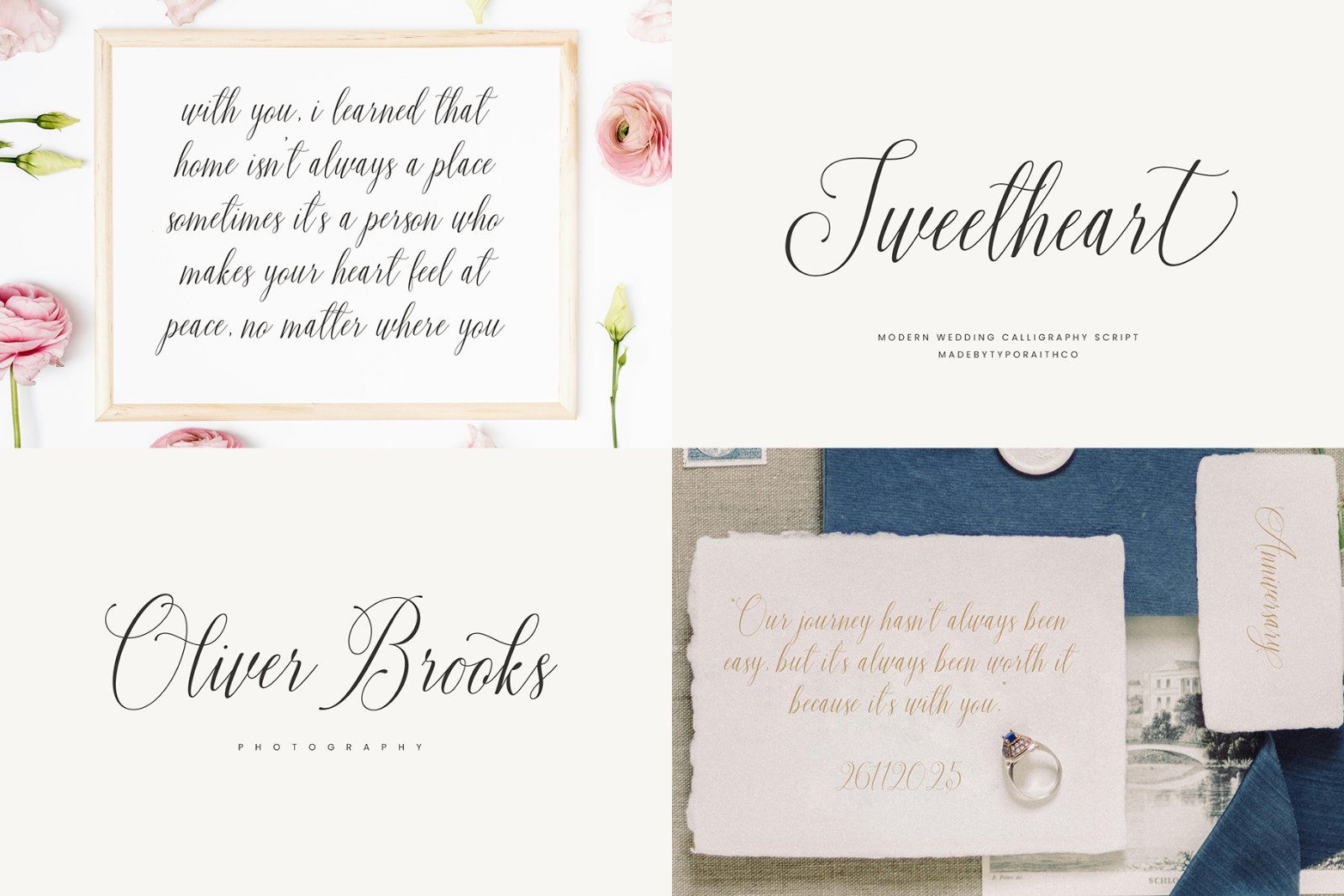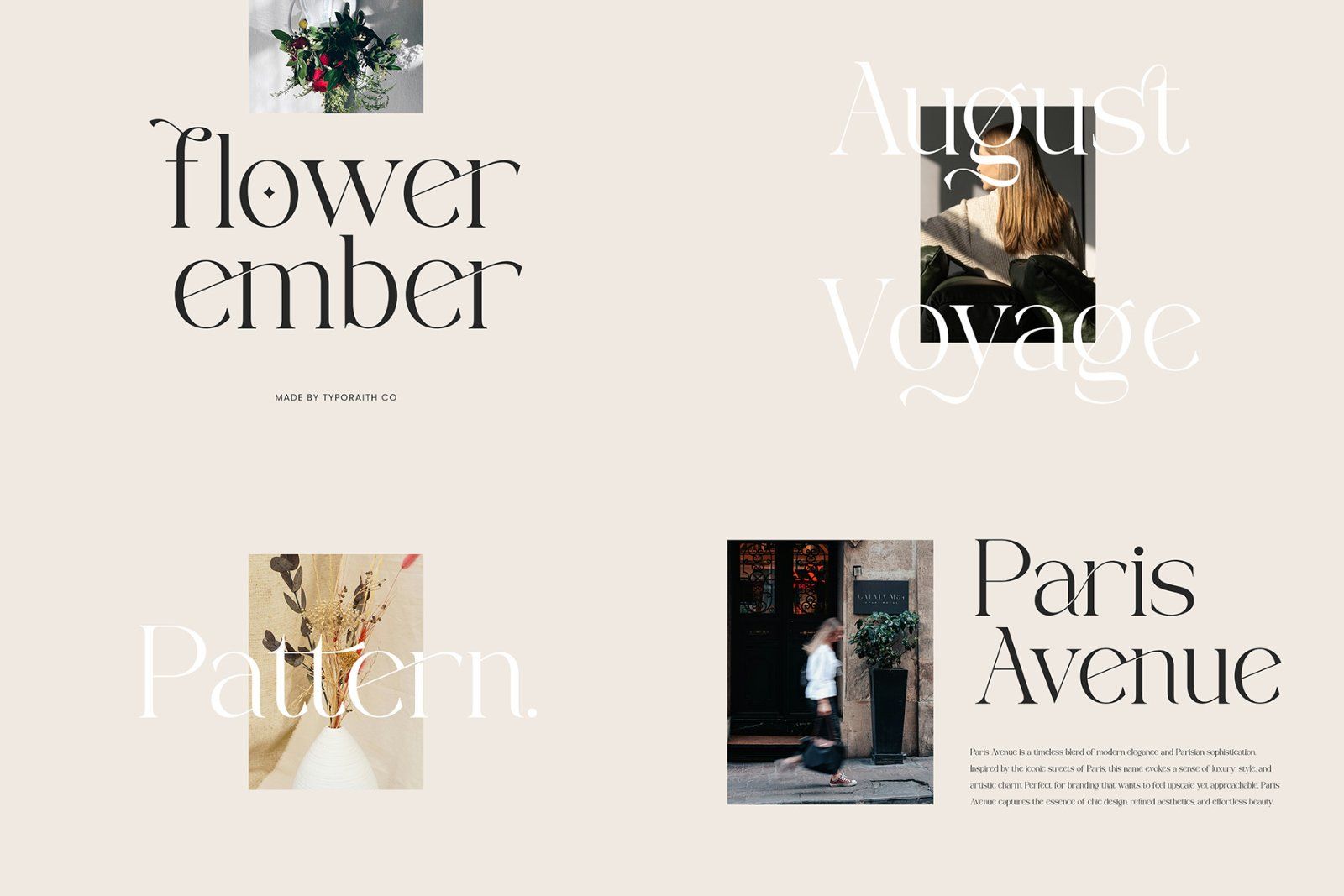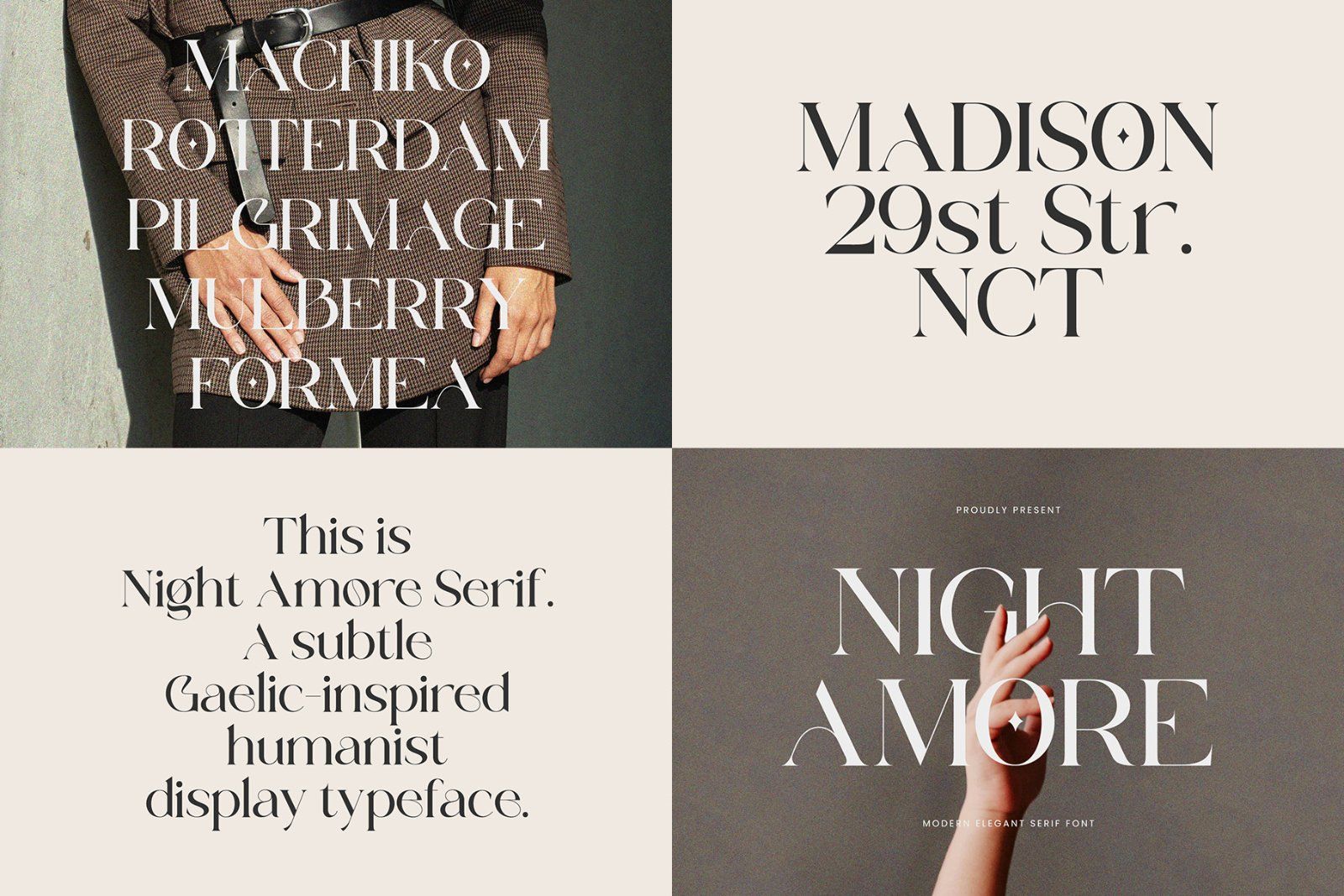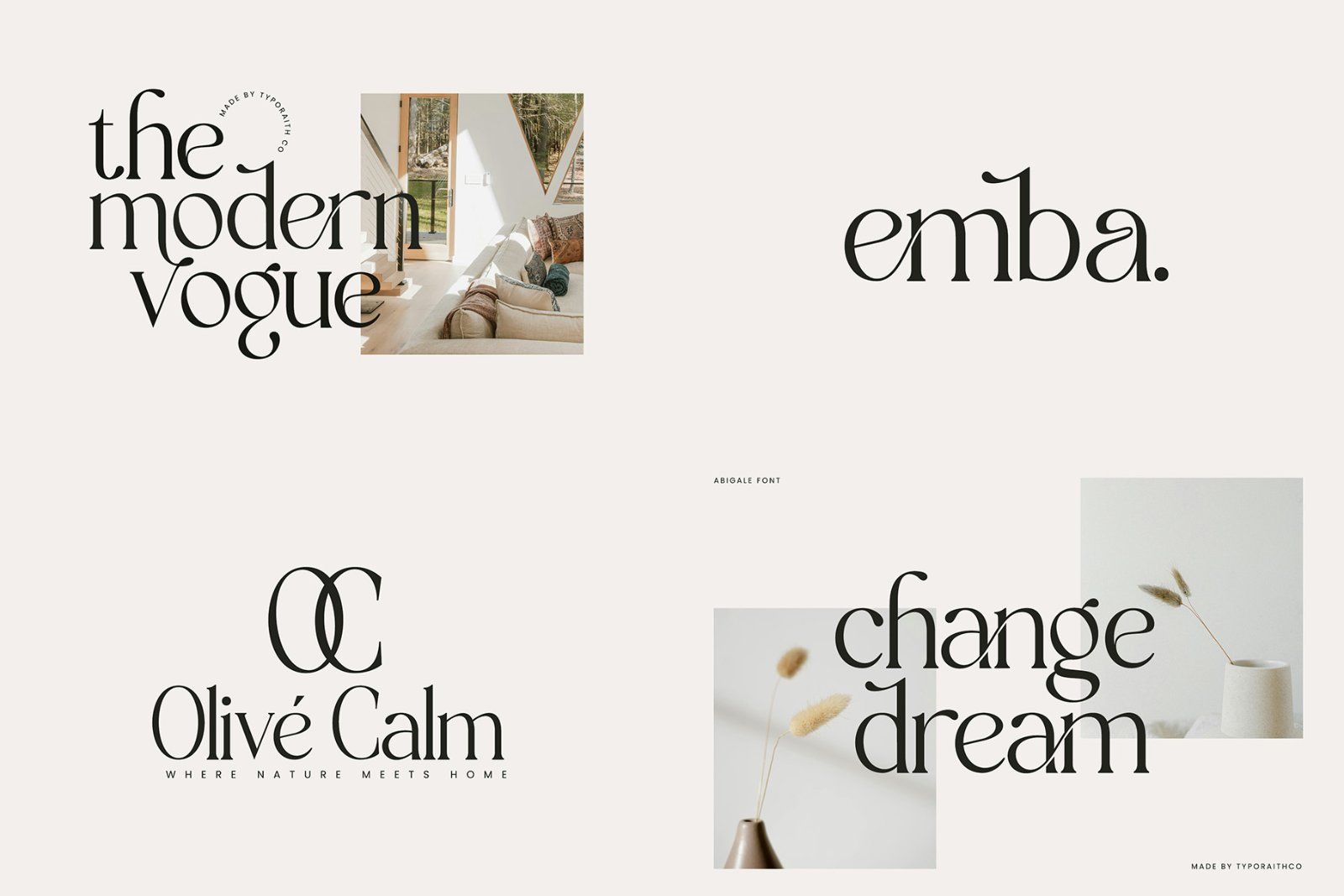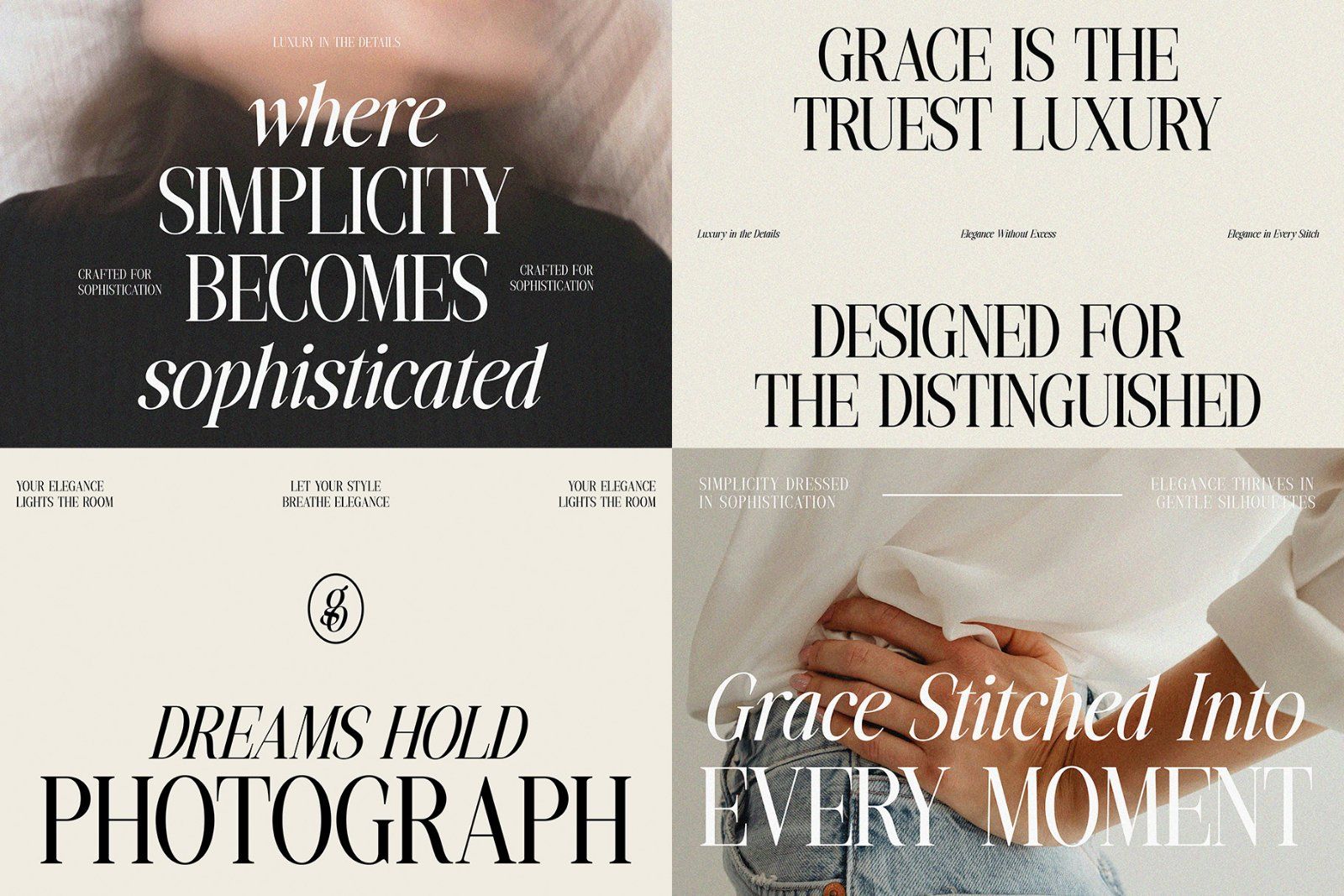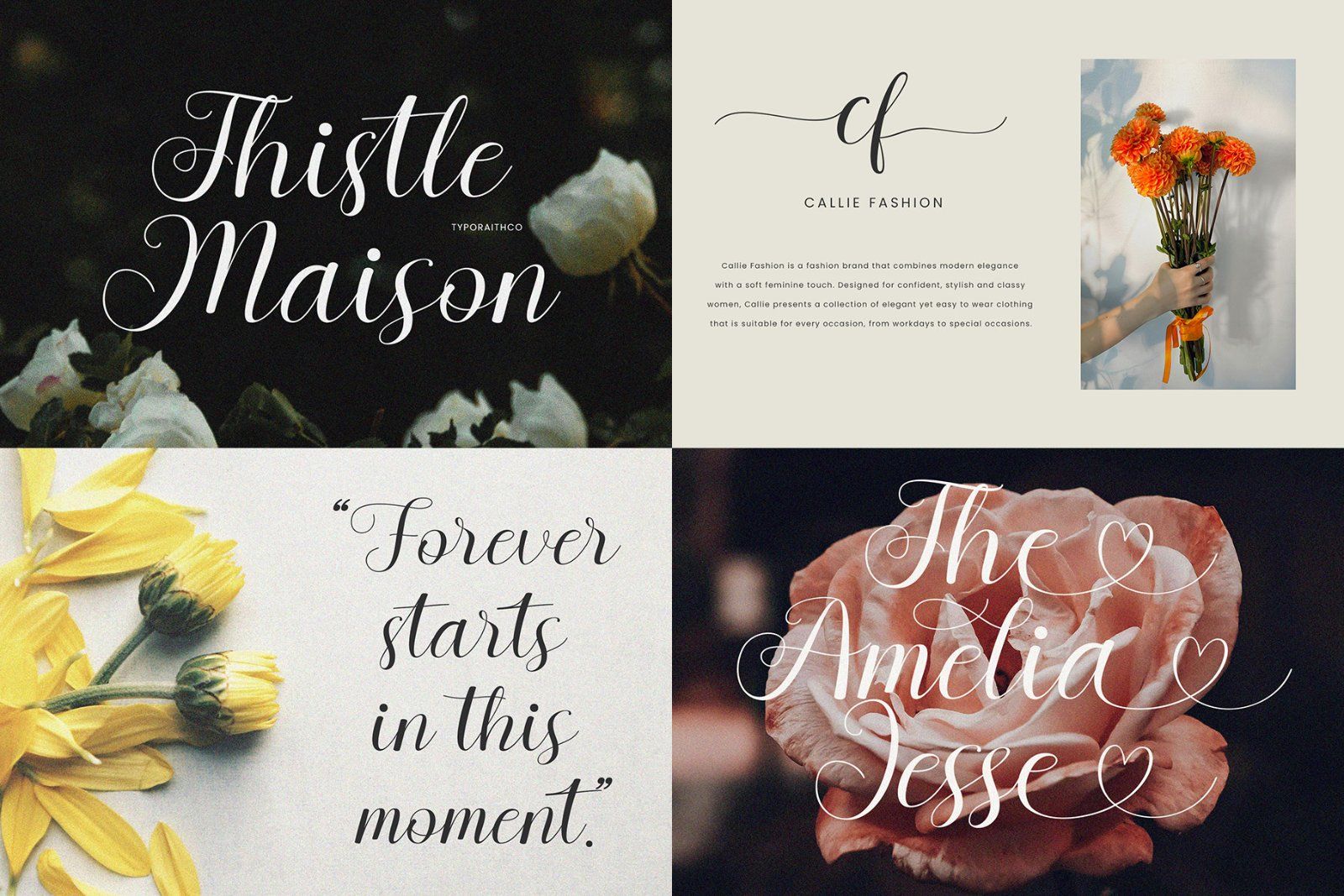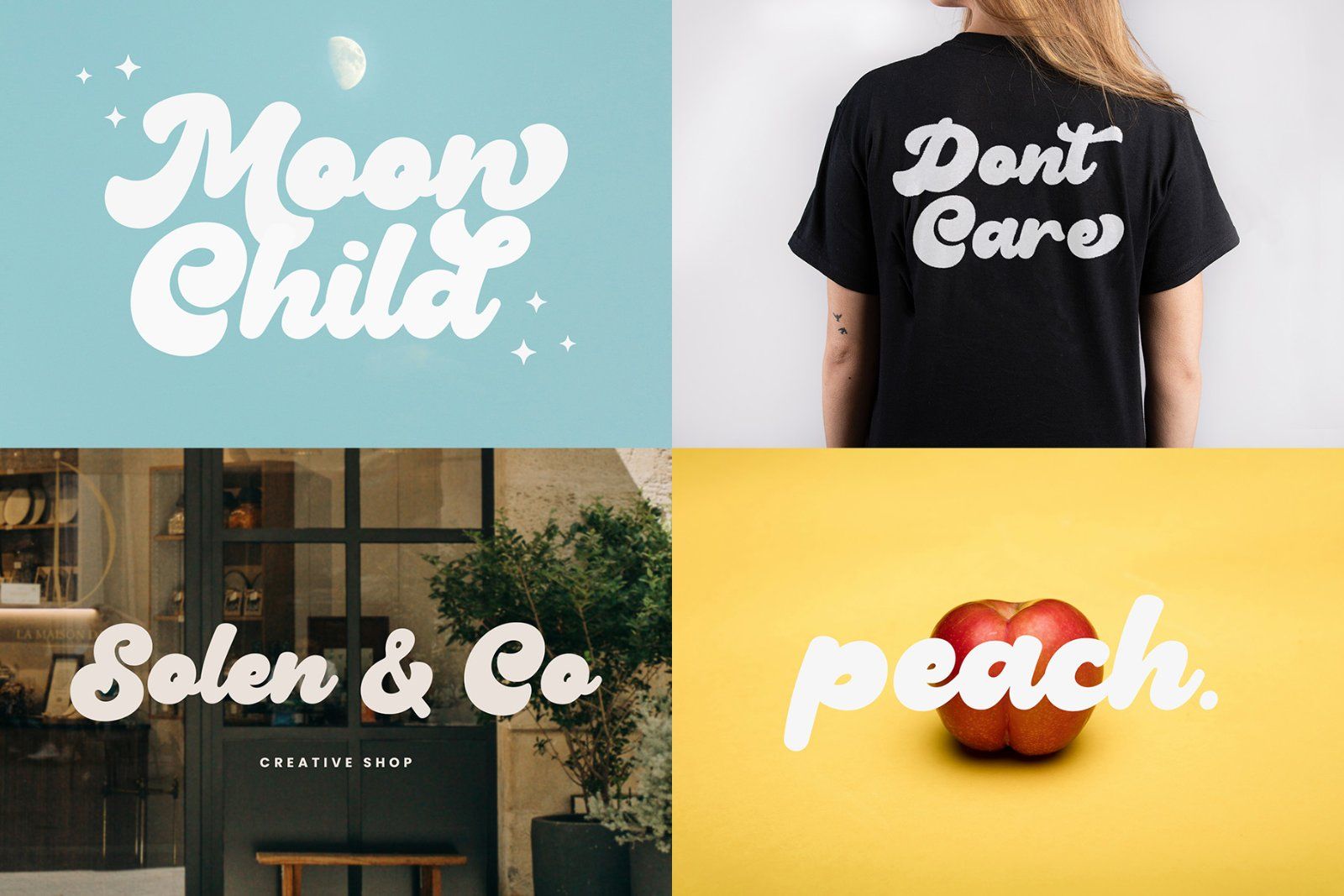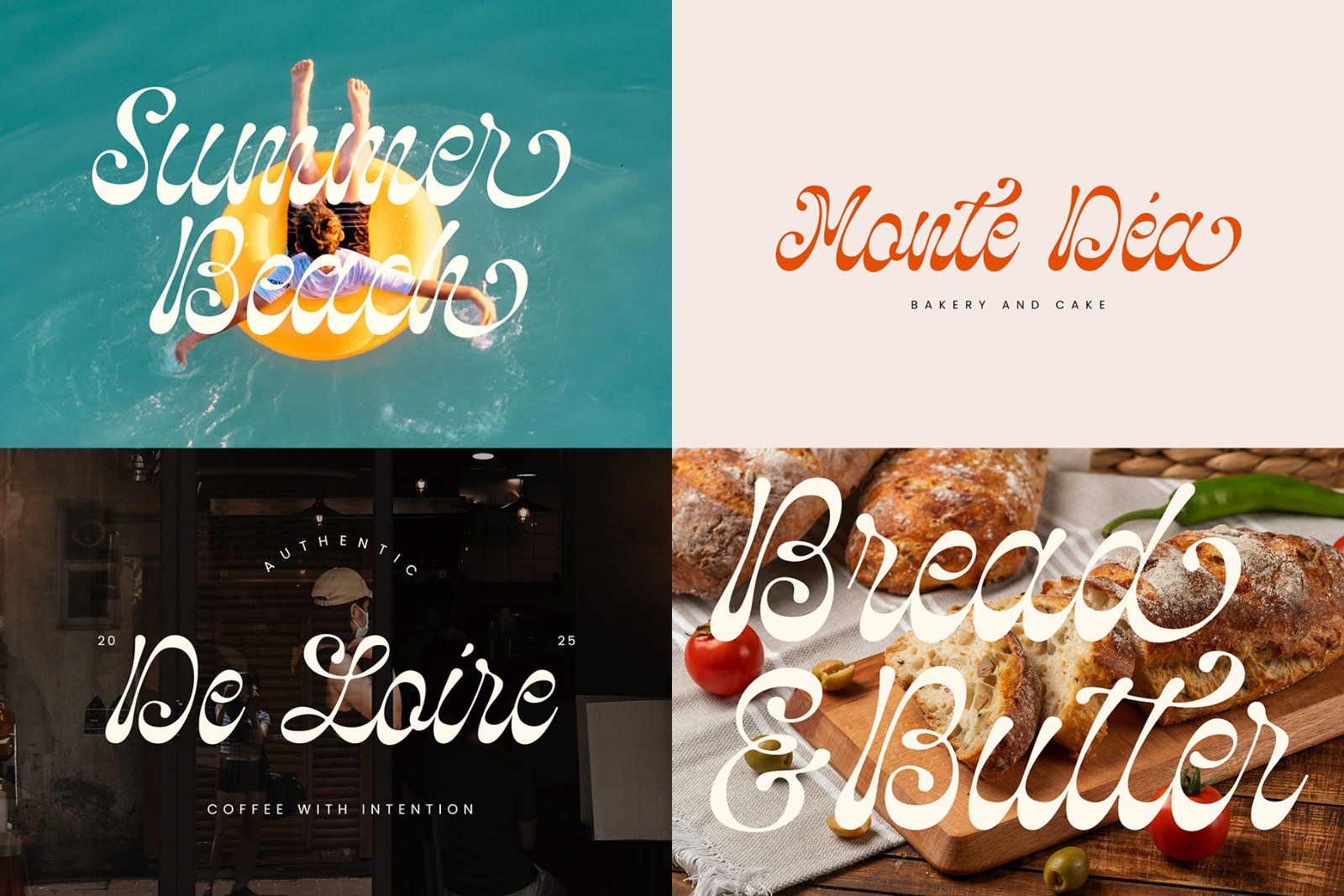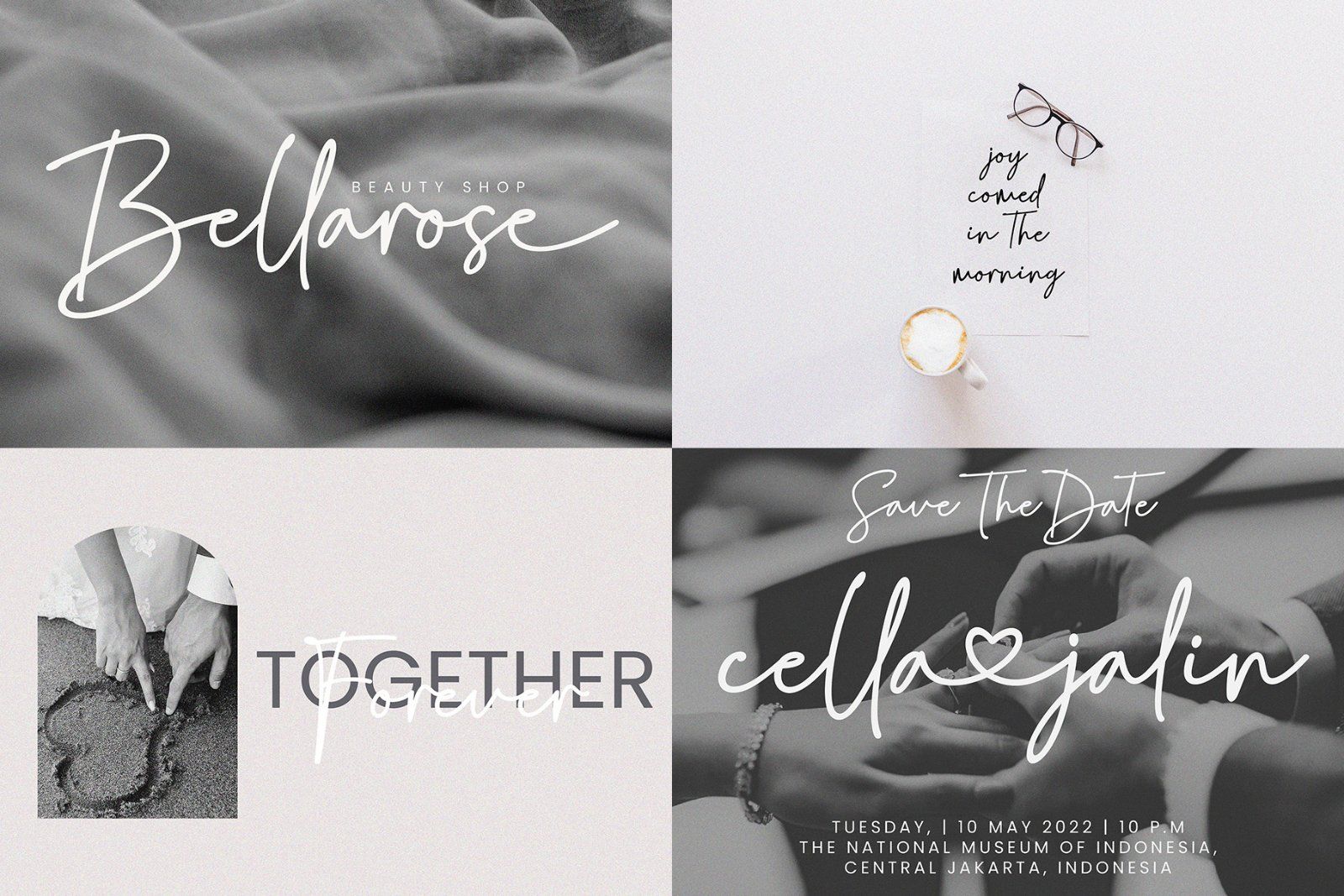
Elevate your creative projects with the Modern Font Bundle, a curated collection of 12 premium, modern, and elegant typefaces crafted by Typoraith Co. This bundle brings together a beautiful mix of serif, script, editorial, and retro-inspired fonts, perfect for designers, creatives, and brand owners who want timeless sophistication in every design.
Each typeface is thoughtfully designed to deliver high–end aesthetics—ideal for branding, wedding designs, logos, editorial layouts, social media, product packaging, invitations, and more.
What’s Included (12 Fonts Total):
• A curated selection featuring:
• Elegant modern serif fonts
• Editorial-style display typefaces
• Handwritten script fonts with beautiful flow
• Retro-inspired bold serif styles
• Aesthetic connecting script fonts
• Stylish branding-ready typefaces
Examples featured in the bundle include: Calistra Calligraphy, Grove Peach, Abigale, Monarch Heritage, Serena Lewis, Cattie, Chairo, Galem, Night Amore, Blush Couture, and more.
Perfect For
• Branding & Logo Design
• Wedding Invitations & Stationery
• Editorial Layouts & Magazines
• Social Media & Instagram Posts
• Packaging & Product Labels
• Quotes, Posters, Business Cards
• Creative Market & Etsy Sellers
• Any project needing a modern, elegant touch
Typoraith Co